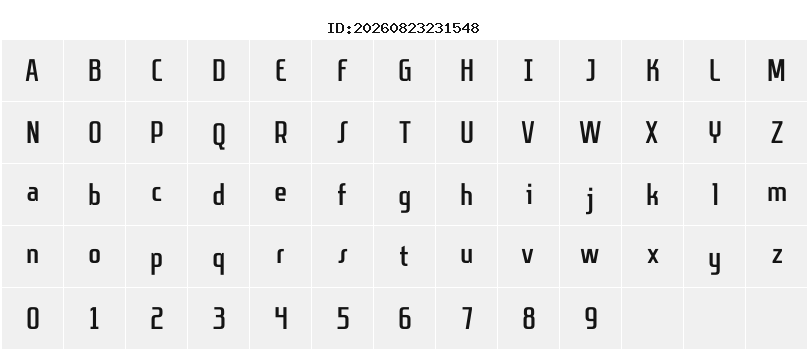
Sanitechtro Preview
• Font Name: Sanitechtro
• Font ID: Sanitechtro Regular
• Full Font Name: Sanitechtro Regular
• Designer: Jayvee D. Enaguas (Grand Chaos)
About Sanitechtro.ttf
Sanitechtro.ttf is a modern, elegant sans-serif font designed for ultimate readability and visual harmony. Perfect for branding, headlines, web design, and print materials.